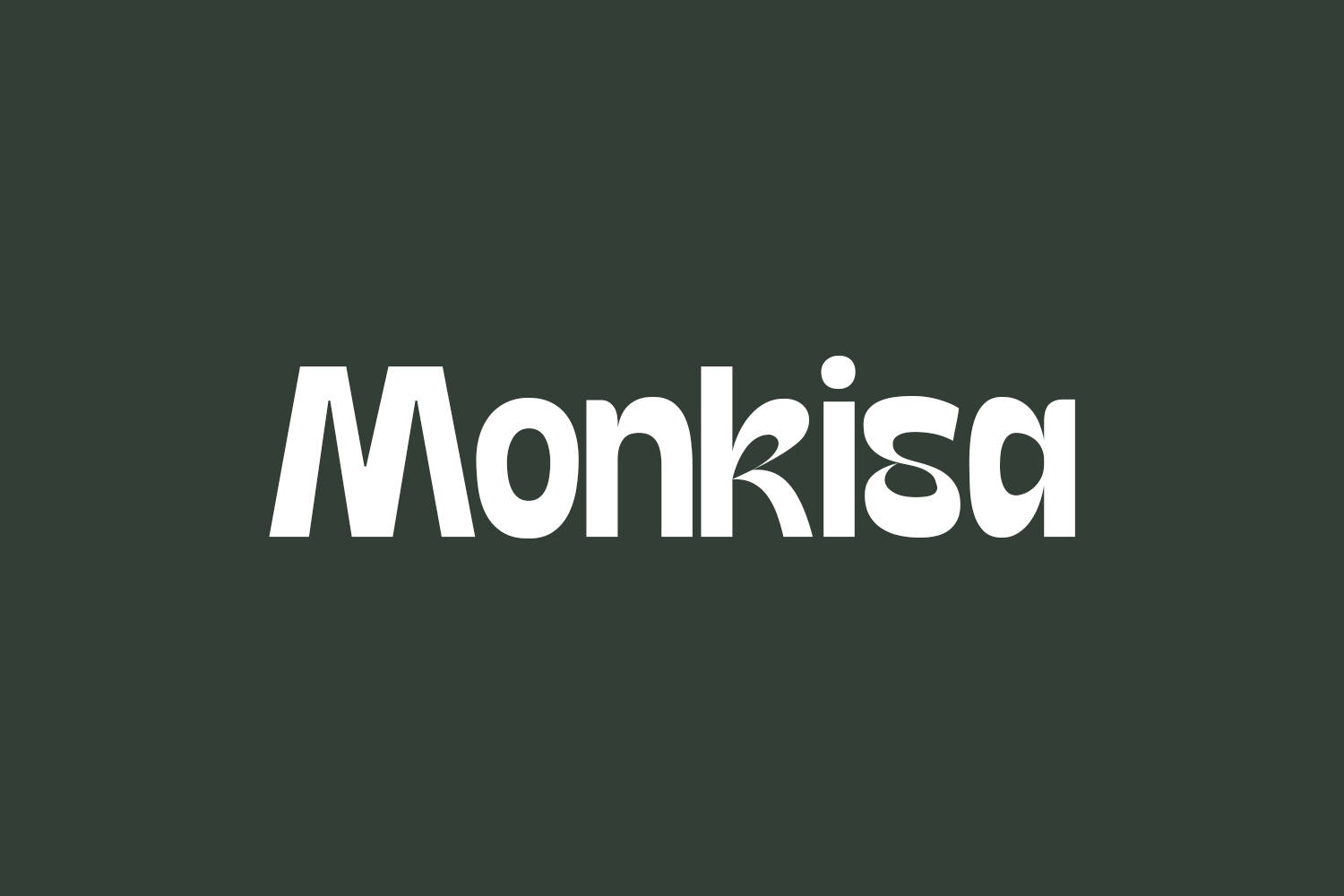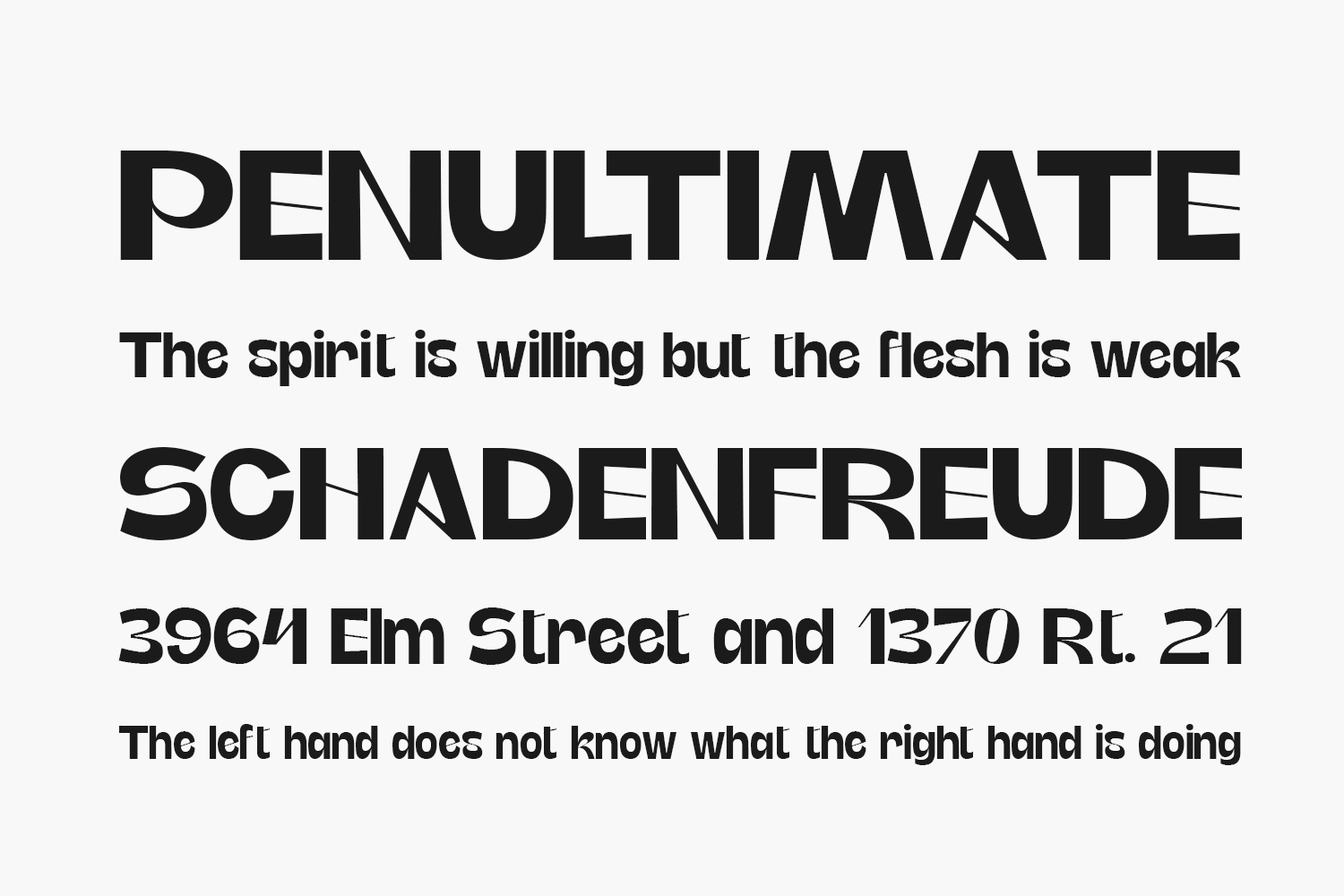
Monkisa Free Font – Stylish Art Deco Display Typeface for Elegant Design
Monkisa is a refined and elegant display typeface designed by NoFeeling Studio to bring vintage glamour and modern clarity to your creative projects. With its geometric structure, smooth curves, and clean Art Deco styling, this free decorative font works perfectly for crafting stylish logos, magazine headers, packaging labels, posters, and more. Available in TTF format — ideal for designers seeking a sophisticated, eye-catching font that blends retro charm with contemporary readability.
Why Choose Monkisa?
- Art Deco Style: Combines classic elegance with minimalist detailing for a timeless, upscale appearance.
- Ideal for Posters & Branding: Perfect for luxury branding, event banners, or high-end packaging needing a vintage tone.
Where to Use Monkisa?
Monkisa shines across a variety of creative applications:
- Logos & Badges: Adds sophistication to brand identities for fashion labels, beauty brands, or lifestyle studios needing a polished look.
- Packaging Design: Ideal for product tags on cosmetics, artisanal goods, or handmade items requiring premium typography.
- Poster & Billboard Design: Designed for visibility — makes headlines pop in large-format visuals.
- Social Media Graphics: Creates bold text overlays for Instagram Stories, TikTok videos, or YouTube banners with a vintage appeal.
- Editorial Headers: Stands out in blog headers, magazine covers, and advertising campaigns needing a classy, structured tone.
Design Tips with Monkisa